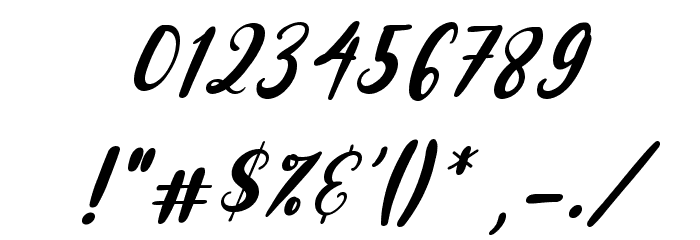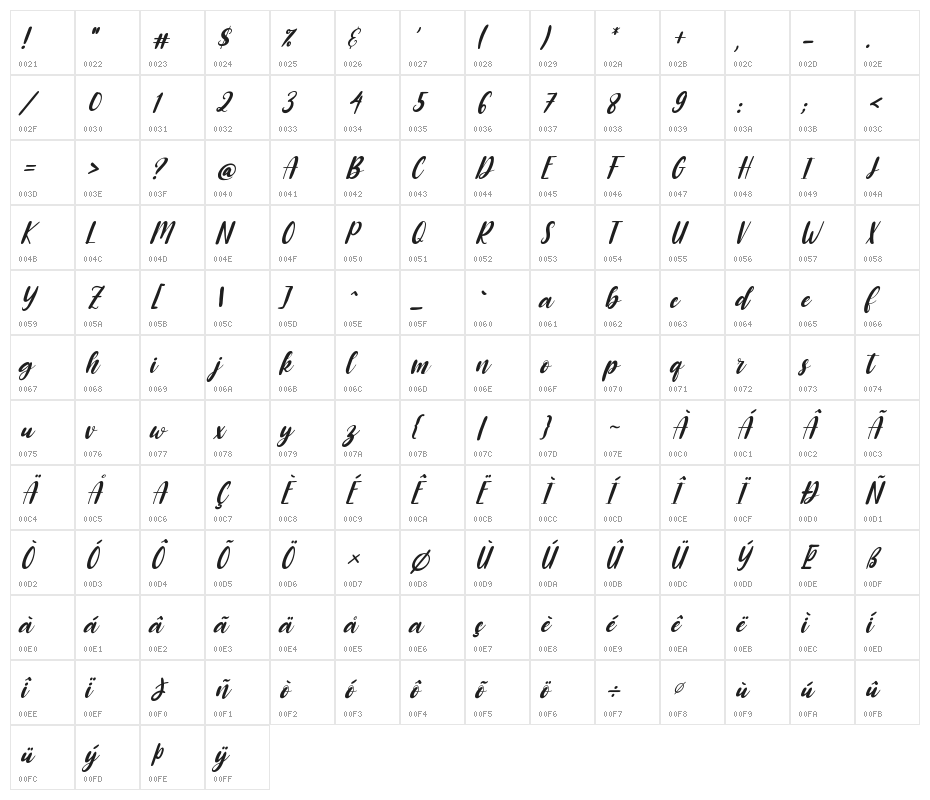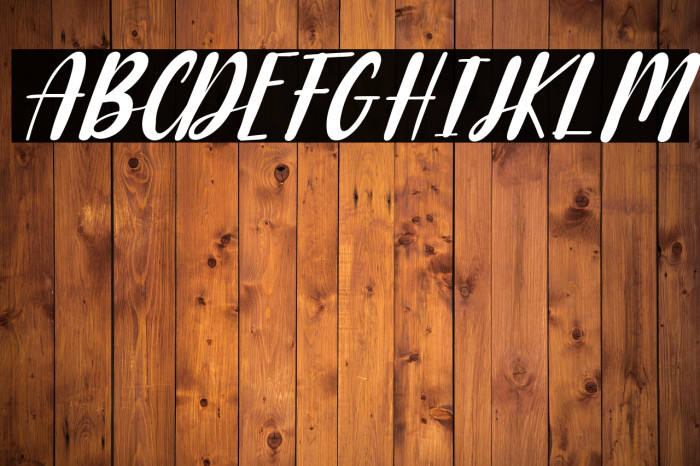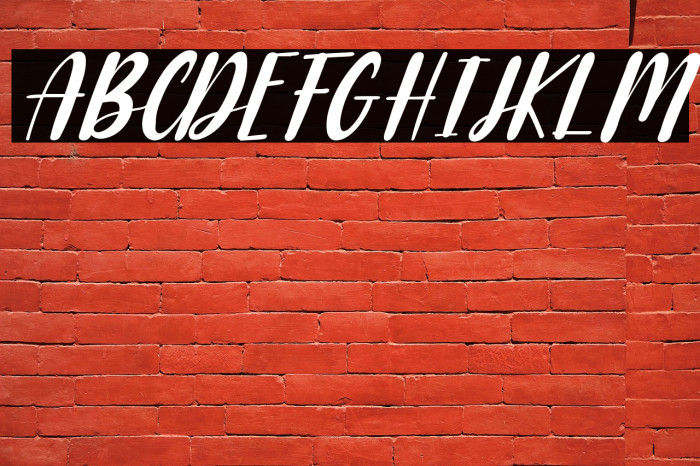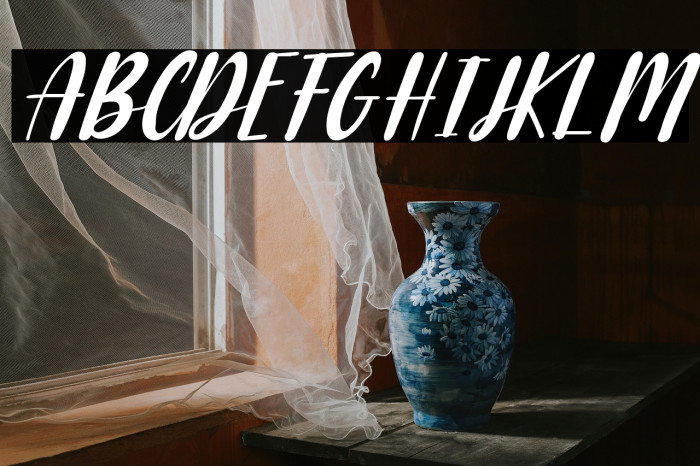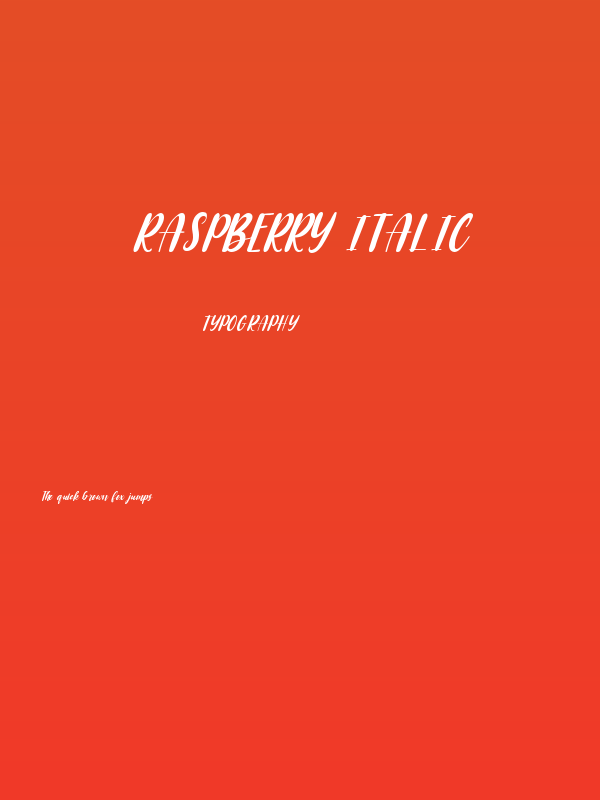
Raspberry Italic Font
Raspberry Italic Description
This font exudes a dynamic and energetic feel with its bold, flowing script style. The letters are elegantly slanted, giving a sense of motion and fluidity. Each character is crafted with smooth curves and a consistent stroke width, creating a harmonious and cohesive look. The uppercase letters are tall and commanding, while the lowercase letters maintain a graceful and approachable appearance. The numerals and special characters are designed to match the overall aesthetic, ensuring versatility across various applications. This font is perfect for projects that require a touch of sophistication and flair.